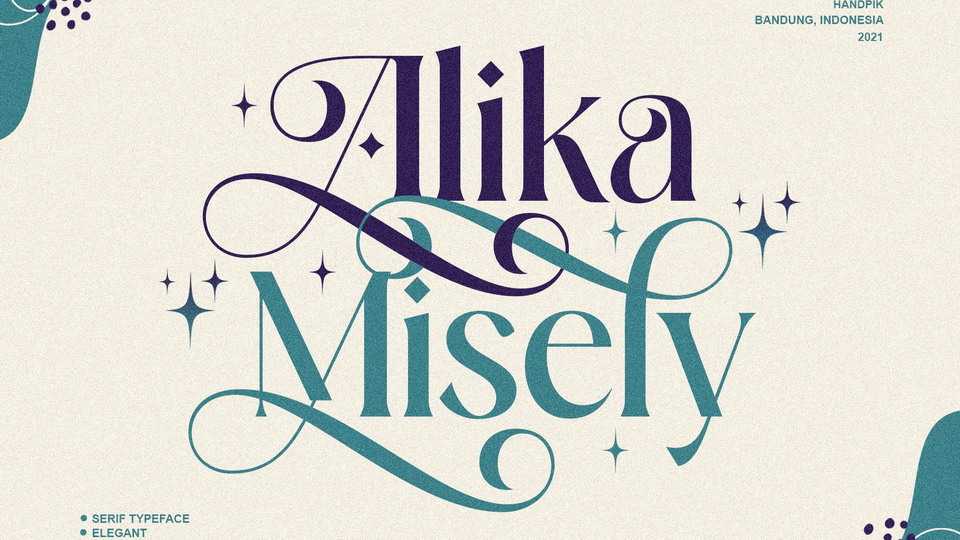
Download Alika Misely font, a serif display typeface that has a classic, feminine, and elegant style. Alika Misely font is perfect for various projects like logos and branding wedding, fashion and editorial projects.
Designer: Handpik Design